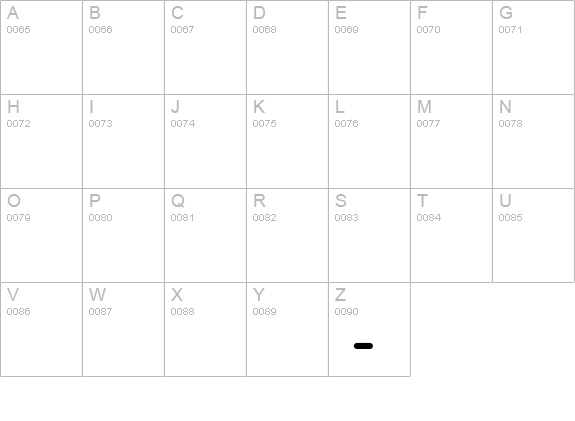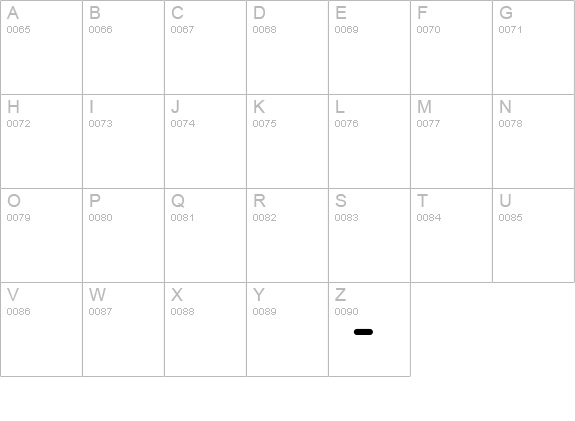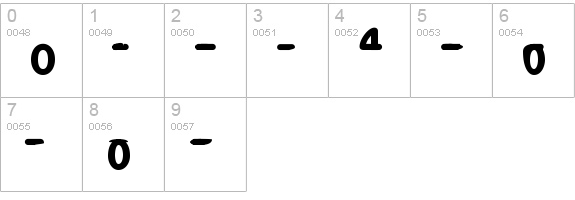
Benzion Bold is a strong, high-contrast variant in the Benzion typeface family \xE2\x80\x94 well suited to headlines, attention-grabbing titles, and strong calls-to-action.
Benzion Bold is a modern and stylish font that exudes confidence and professionalism. With its bold and eye-catching appearance, Benzion Bold is sure to make a statement in any design project. This versatile font is perfect for headlines, titles, logos, and more. The best part? Benzion Bold is available for free download at FontsMarket.com. Don't miss out on the opportunity to add this stunning font to your collection without spending a penny. Download Benzion Bold today and take your designs to the next level!